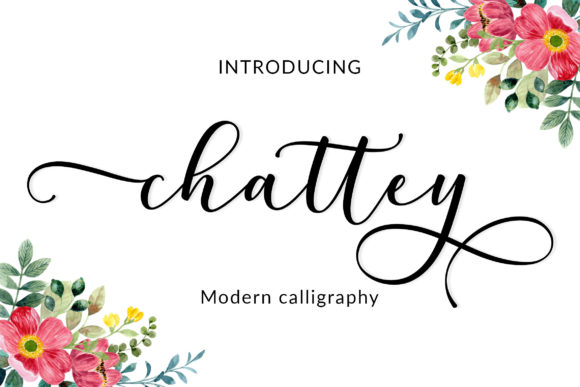
Chattey Font
Embark on a typographic odyssey with Chattey Font, a script font that exudes elegance, modernity, and a touch of whimsy. Crafted with meticulous attention to detail by Amarlettering, Chattey embodies the essence of sophistication and charm. Its graceful curves and delicate strokes evoke a sense of timeless beauty, making it the perfect choice for a wide range of creative endeavors.
Immerse yourself in the world of Chattey Font and discover its versatility. Ideal for crafting logos that leave a lasting impression, Chattey effortlessly elevates your brand identity to new heights. Its stylish characters add a touch of elegance to branding projects, creating a cohesive and visually appealing aesthetic. Whether you're designing business cards, letterheads, or social media graphics, Chattey ensures your brand shines with distinction.
With Chattey Font as your creative companion, invitations and stationery take on a whole new level of artistry. Its intricate details and flowing lines add a touch of romance and charm to wedding invitations, making your special day even more memorable. Capture the magic of life's precious moments with Chattey, transforming ordinary cards and notes into exquisite expressions of love and friendship.
Unleash your creativity with Chattey Font and elevate your social media presence. Its visually captivating characters bring life to your posts, stories, and reels, engaging your audience with captivating typography. From fashion and lifestyle blogs to travel and food photography, Chattey adds a touch of sophistication that sets your content apart.
Discover the boundless possibilities of Chattey Font, a font that empowers you to turn your creative visions into reality. With its PUA encoding, you'll have effortless access to a treasure trove of glyphs and swashes, allowing you to add intricate details and embellishments to your designs. Whether you're a seasoned graphic designer or just starting your creative journey, Chattey is the perfect font to elevate your projects to new heights.
Embrace the allure of Chattey Font and let your imagination soar. Its timeless beauty and endless versatility make it an indispensable tool for designers, artists, and creative professionals alike. Experience the joy of creating stunning logos, captivating branding, exquisite invitations, and mesmerizing social media content with Chattey Font. Its elegant charm will leave a lasting impression on your audience, making your creative endeavors truly unforgettable.